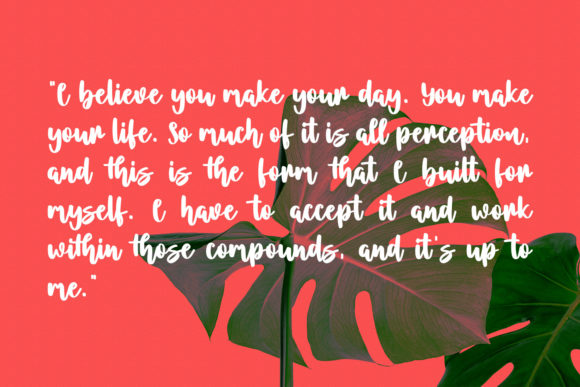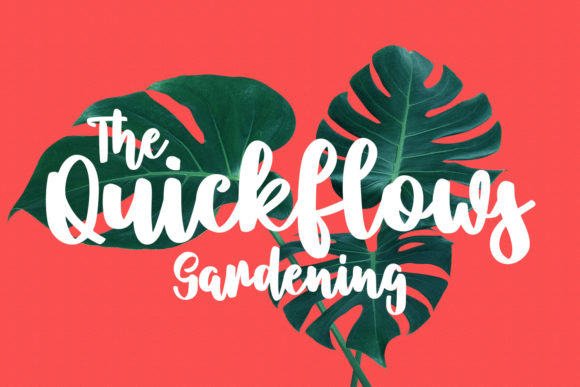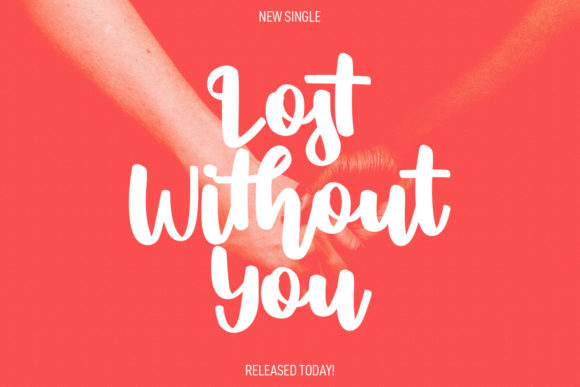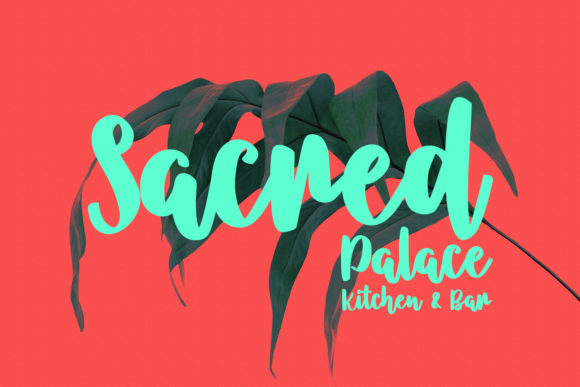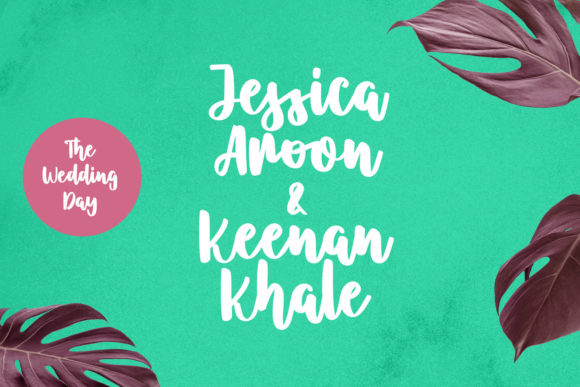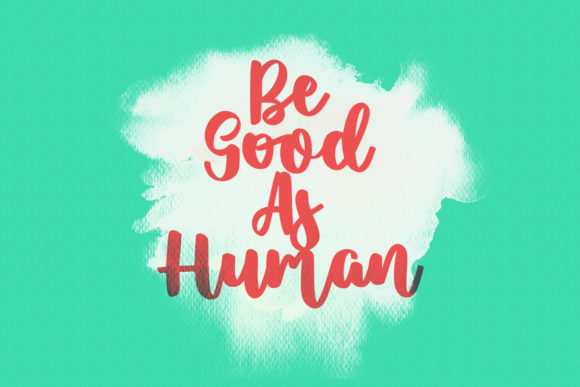
Introduction to Lostmithy Script Font
Remember the feeling of rummaging through a vintage thrift store, discovering a rare gem amidst the chaos? It’s that same thrill that comes with finding the perfect design resource for your creative project. And, for many designers, that perfect gem is the Lostmithy Script Font.
With its thick, bold letters and dynamic flair, the Lostmithy Script Font is more than just a font – it’s a statement piece that adds a touch of nostalgic character to any design. Whether you’re working on a free download project or a high-quality print campaign, this font is sure to elevate your work and leave a lasting impression.
What makes Lostmithy Script Font truly valuable is its versatility and ease of use. It’s perfect for creating eye-catching headlines, adding texture to your designs, or even creating a transparent background that lets your message shine through.
Key Features of Lostmithy Script Font
- Unique, hand-crafted design ideal for creative projects, including invitations, quotes, and more.
- Transparent background allows for seamless integration with various design elements and backgrounds.
- Perfect design resource for designers and artists looking to add a touch of elegance and sophistication to their projects.
Honest Review: Lostmithy Script Font
I recently stumbled upon the Lostmithy Script Font, a free download that I was eager to put to the test. As a designer, I’m always on the lookout for high-quality design resources to elevate my creative projects.
- ✨ Elegant and refined aesthetic: The Lostmithy Script Font has a sophisticated look that’s perfect for branding, invitations, or any project where a touch of elegance is needed.
- ✨ Smooth and connected strokes: The font’s script-like design creates a sense of flow and continuity, making it a great choice for titles or headings.
- ✨ Transparency option: The font comes with a transparent background option, which is super useful for creating overlays or adding texture to your designs.
- ⚠️ Limited character set: While the font looks great, the character set is a bit limited, which might make it difficult to use for longer blocks of text.
- ⚠️ Not suitable for small sizes: The font’s elegant design can get lost at small font sizes, making it harder to read.
Overall, I’d say the Lostmithy Script Font is a great addition to any designer’s toolkit. While it has some limitations, its high-quality design and transparent background option make it a valuable resource for creative projects. Just be mindful of its limitations and use it wisely.
Tips for Getting the Most Out of Lostmithy Script Font
Use the Lostmithy Script Font in combination with other design resources, such as images and graphics, to create a unique and high-quality design. Experiment with different font sizes, colors, and styles to find the perfect look for your creative project.
The Lostmithy Script Font is ideal for use in invitations, social media graphics, and other creative projects where a unique and elegant font is needed. It’s also a great design resource for free download, making it accessible to designers and non-designers alike.